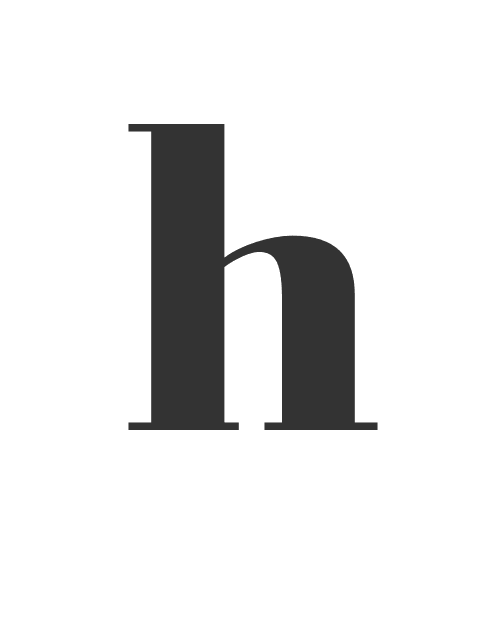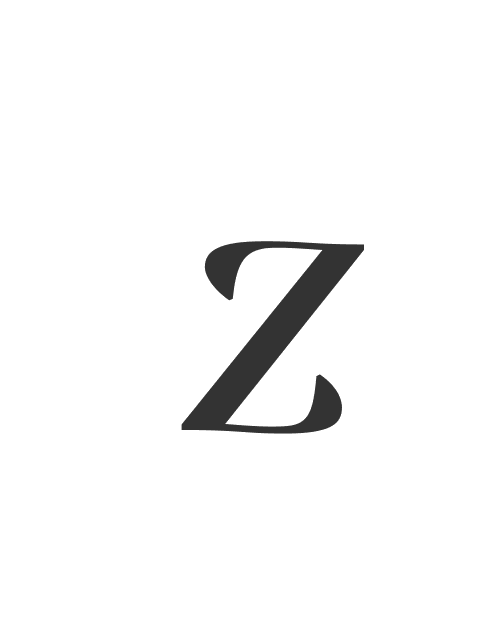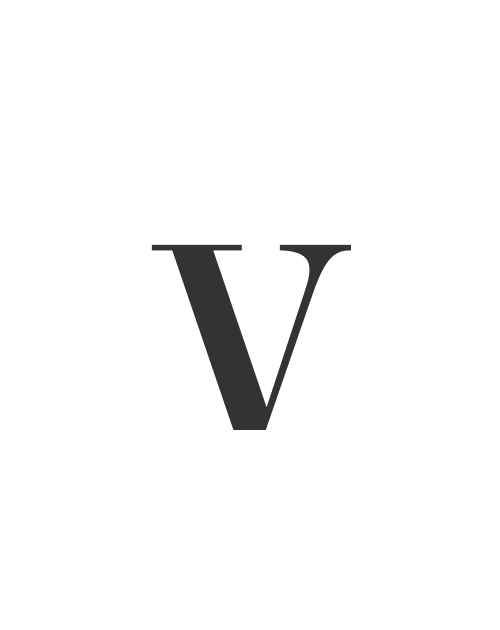
About the typeface :
Baron Grande
Baron is a modern display typeface inspired by super-ellipse shaped typefaces by Hermann Zapf such as Melior and Zapf Elliptical. Intended to be used in large sizes, Baron tries to differ from early pointed pen models with its friendly terminals and some asymmetric counters. Baron family consists of Baron Regular, Italic, and Bold.
About the designer :
Alpkan Kirayoglu
After finishing high school in Istanbul, Alpkan moved abroad and studied graphic design at several art schools such as School of Visual Arts in New York and Rhode Island School of Design in Providence. After finishing college, Alp worked for Poulin+Morris, a New York graphic design studio focusing on environmental design projects.